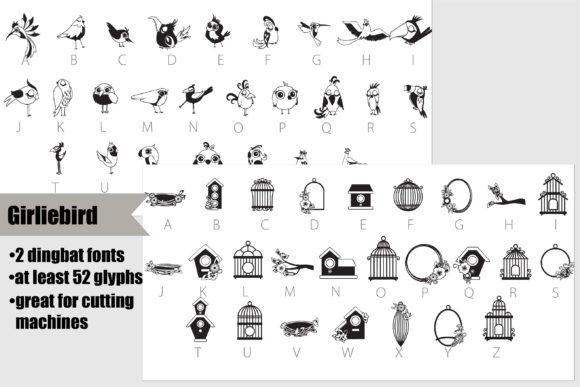
**Girliebird Font: A Whimsical Dingbat Duo for Vinyl Lovers**
In a world where creativity knows no bounds, meet Girliebird Font, a charming dingbat duo that will paint your vinyl projects with playful elegance. Illustration Ink, the mastermind behind this font family, has meticulously crafted two extraordinary fonts that cater to the unique needs of vinyl enthusiasts.
**Dive into a World of Enchanting Birds and Birdhouses**
This captivating bundle offers two distinct dingbat fonts, each adorned with a delightful array of glyphs. The first font features a chorus of adorable birds, their delicate wings poised in mid-flight. From graceful swallows to cheerful robins, these avian wonders bring a touch of nature's beauty to your designs.
The second font introduces a collection of charming birdhouses, each a tiny haven waiting to be discovered. Intricate details, from cozy perches to whimsical decorations, transform these birdhouses into miniature works of art.
**Unleash Your Creativity with Endless Vinyl Possibilities**
Girliebird Font is the ultimate companion for your vinyl projects. Its dingbat designs are perfectly suited for creating custom labels, decals, signs, and more. Whether you're personalizing a gift, adding a touch of whimsy to your home décor, or starting a small business, this font family has you covered.
**Features that Make Girliebird Font Irresistible:**
* Two distinct dingbat fonts with a multitude of glyphs
* Perfect for vinyl cutting machines, ensuring precise and intricate cuts
* Ideal for creating personalized labels, decals, signs, and more
* Adds a touch of charm and personality to any project
**Ignite Your Imagination with Girliebird Font**
Let your creativity soar with Girliebird Font, the dingbat duo that brings a touch of magic to your vinyl projects. Its enchanting birds and birdhouses will captivate your audience, leaving a lasting impression. Embrace the beauty of nature and add a personal touch to your creations with this remarkable font family.